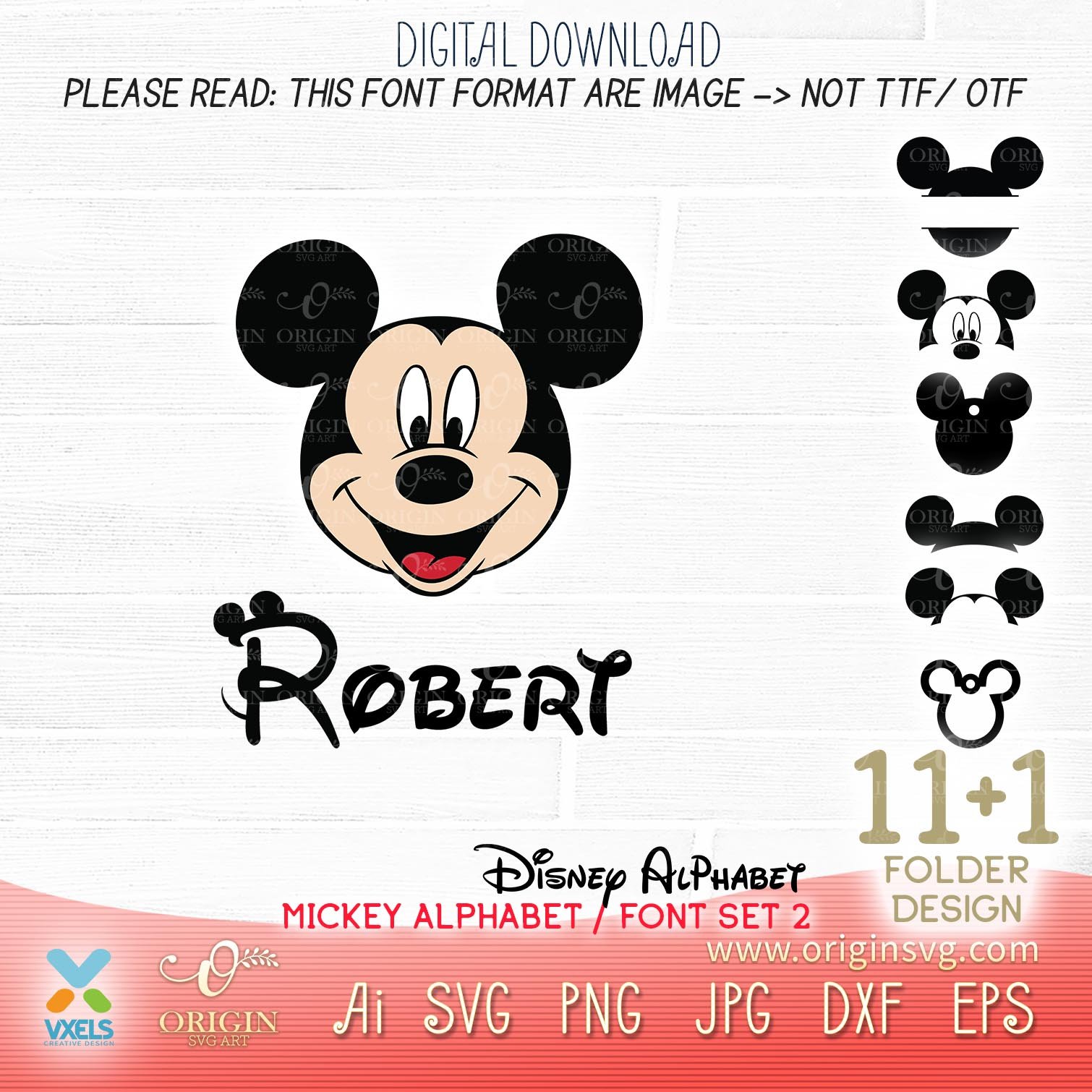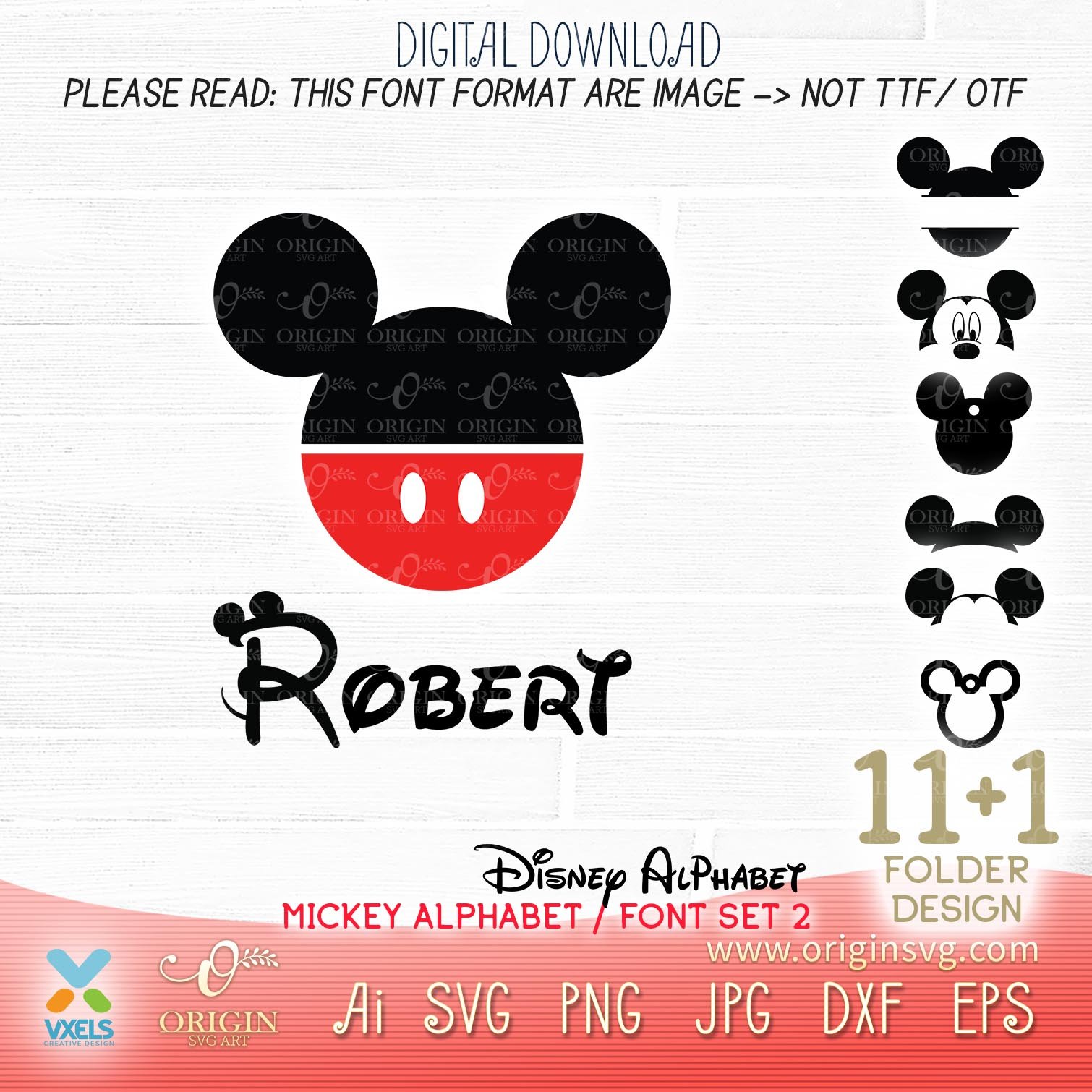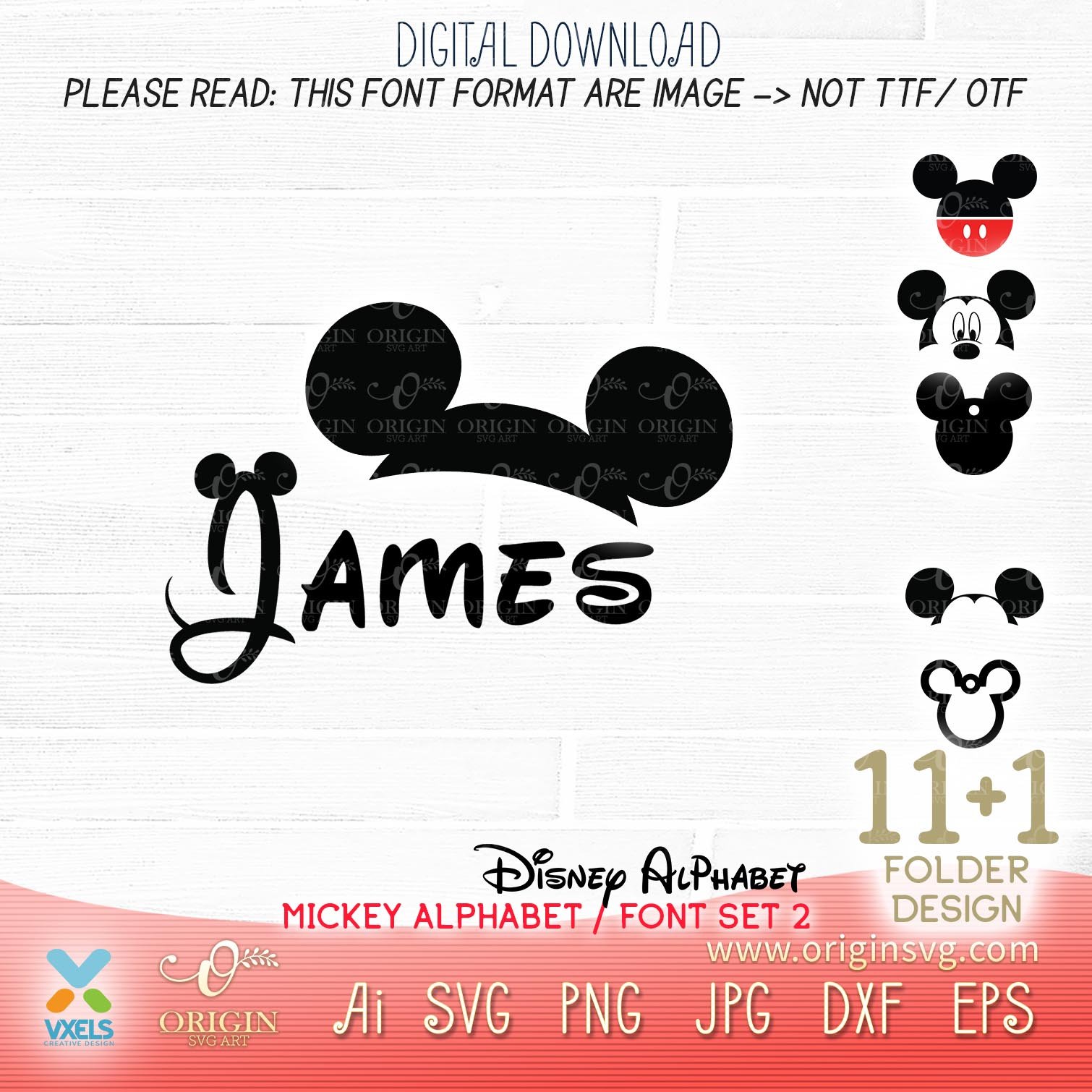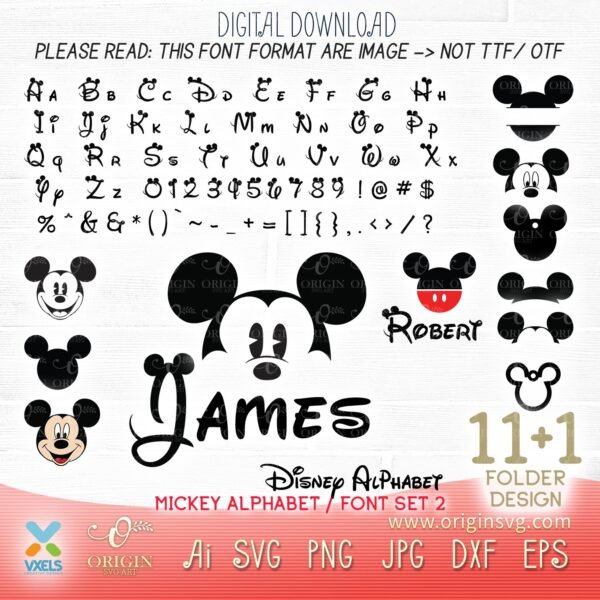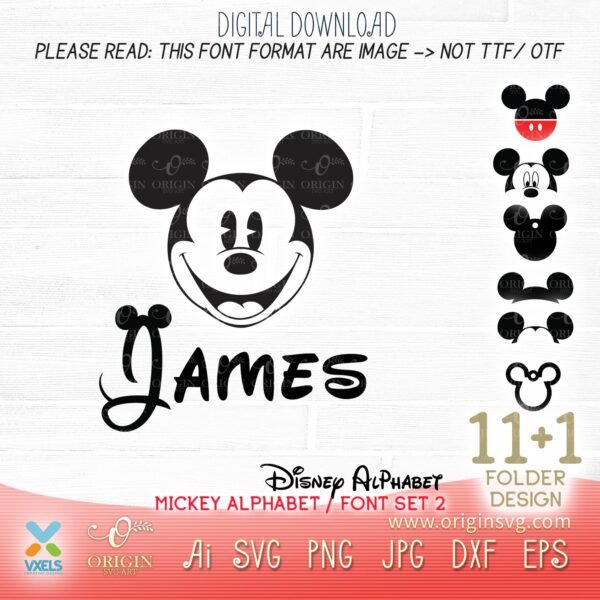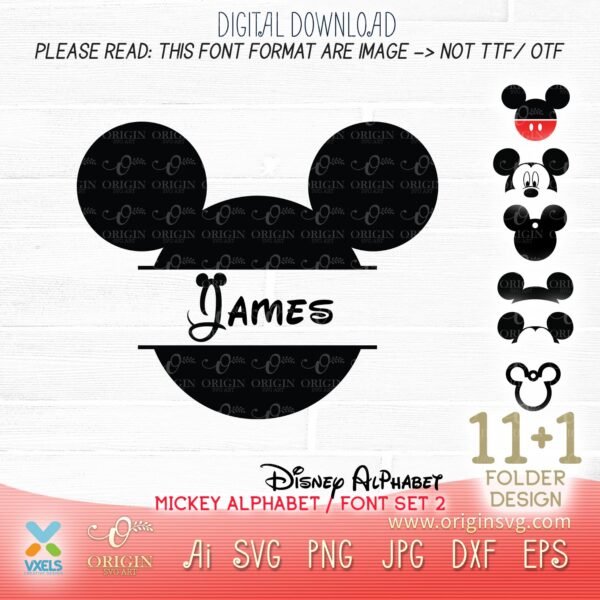
Set 2 of Dissney Font Alphabet SVG Mickeu Mouse Cricut and Silhouette for Name Tag and Birthday. Designed for Cricut file, vinyl decal file for silhouette cameo. This micky mose theme cut file are compatible for Cricut cut file, Illustrator, DXF, EPS PNG and Jpeg Image. All image cutting clip art is ready to download for kids name tag, card design, t-shirt, mug, pillow, art and craft, or other artworks. Printable Wall Decor, Printable Sign, Wall Sign, Commercial Use, File Download, SVG PNG.